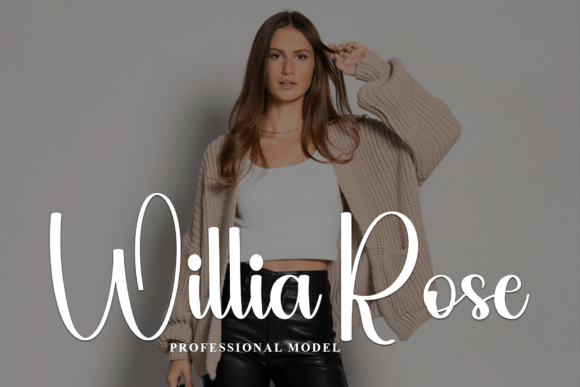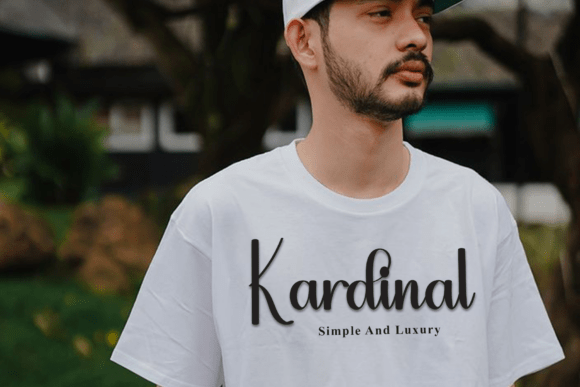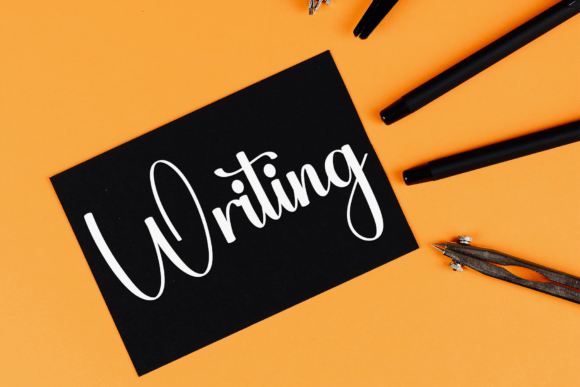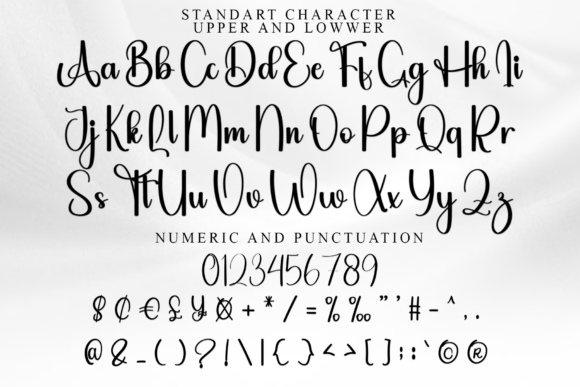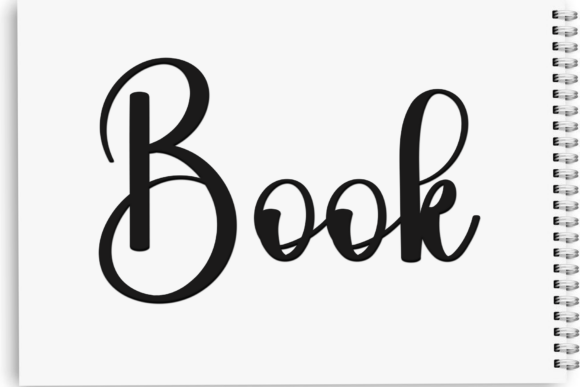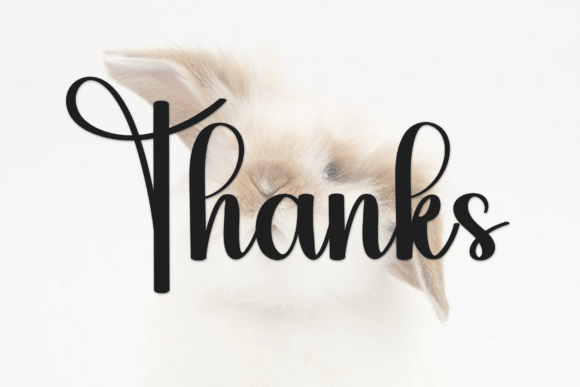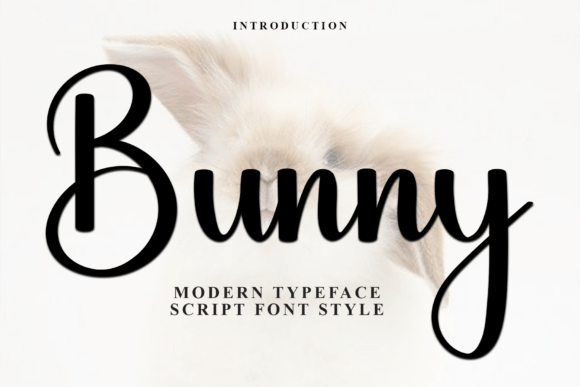
The Bunny Font: A Playful Companion for Your Design Projects
I still remember the time I was working on a whimsical birthday invitation for my niece. I had all the design elements in place – the colors, illustrations, and layout – but something was missing. The font I was using just didn’t have that friendly, approachable vibe I was going for. That’s when I stumbled upon the Bunny font, and it instantly brought my design to life! If you’re a designer, crafter, or creative hobbyist looking for a font that exudes warmth and friendliness, you’re in the right place.
A Personal Review of Bunny Font
I’ve had the pleasure of working with the Bunny font on several projects, and here’s what I think:
• ✨ The round, playful strokes create a relaxed and approachable feel that’s perfect for personal projects, invitations, and social media graphics.
• ✅ The font’s charming, hand-drawn aesthetic adds a fun and unique touch to any design.
While I love the Bunny font, there are a few things to keep in mind:
• ⚠️ The font might not be the best choice for very formal or professional projects, as it has a distinctly casual and playful feel.
• 🤔 Some users might find the font a bit too whimsical or childish for certain designs.
The Story Behind Bunny Font
The Bunny font was designed by a talented type designer who wanted to create a font that would bring a smile to people’s faces. Inspired by the playful, whimsical world of children’s illustrations, the designer crafted a font that would be perfect for personal projects, invitations, and social media graphics. With its charming, hand-drawn aesthetic and friendly feel, the Bunny font has become a favorite among designers and crafters.
Font Name Bunny Font
Author PiPi Creative
What type of projects is the Bunny font best suited for? The Bunny font is perfect for personal projects, invitations, social media graphics, and any design that requires a friendly, approachable feel.